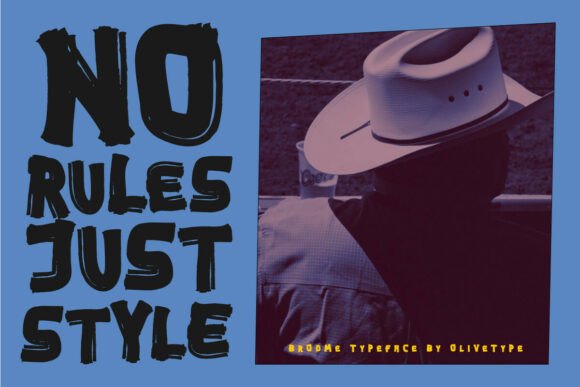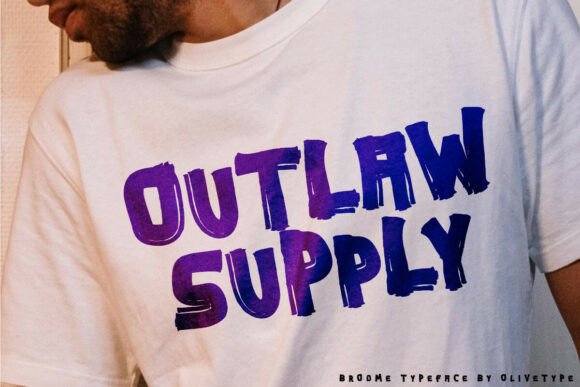
Unleash Your Design’s Wild Side with Broome Font
Are you tired of using the same old clean and polished typography in your designs? Do you want to add a touch of raw energy and rugged attitude to your projects? Look no further than Broome Font, a bold brush display font that’s sure to make a statement.
The Inspiration Behind Broome
Broome is a handcrafted font that captures the essence of gritty, hand-painted textures. Its rough edges and expressive letterforms evoke a sense of movement and rebellion, making it perfect for designers who want to break away from the norm. With its worn-in feel and authentic charm, Broome is the ideal choice for projects that demand attention and personality.
Perfect for Bold and Edgy Designs
Broome is a versatile font that can be used in a variety of design projects, from western cowboy themes to vintage posters, movie titles, music covers, and apparel branding. Its bold and rugged style makes it perfect for creating striking visual impacts that grab attention. Whether you’re working on a bold social media graphic or a large headline, Broome delivers a dynamic and organic feel that’s sure to impress.
What Sets Broome Apart
So, what makes Broome stand out from other fonts? Here are just a few features that set it apart:
- Handcrafted brush style: Broome’s handcrafted brush style gives it a natural, imperfect charm that’s both dynamic and organic.
- Rough edges and expressive letterforms: The font’s rough edges and expressive letterforms create a sense of movement and rebellion, making it perfect for designs that demand attention.
- Worn-in feel: Broome’s worn-in feel gives it an authentic, vintage vibe that’s perfect for designs that need a touch of nostalgia.
- Versatile: Broome can be used in a variety of design projects, from bold headlines to social media graphics.
How to Use Broome in Your Designs
Broome is a versatile font that can be used in a variety of design projects. Here are just a few ideas to get you started:
- Western cowboy themes: Broome’s rugged and bold style makes it perfect for western cowboy themes, from wanted posters to saloon signs.
- Vintage posters: The font’s worn-in feel and authentic charm make it perfect for vintage-style posters, from movie promotions to event advertisements.
- Movie titles and music covers: Broome’s bold and edgy style makes it perfect for movie titles and music covers, adding a touch of raw energy and rebellion to your designs.
- Apparel branding: The font’s handcrafted brush style and rugged attitude make it perfect for apparel branding, from t-shirt designs to hat logos.
- Social media graphics: Broome’s bold and dynamic style makes it perfect for social media graphics, from Instagram posts to Facebook ads.
| Font Name | Broome Font |
| Author | olivetype |
If you’re looking for a font that adds a touch of raw energy and rugged attitude to your designs, look no further than Broome Font. Its handcrafted brush style, rough edges, and expressive letterforms make it perfect for designers who want to break away from clean and polished typography. With its versatility and dynamic feel, Broome is the perfect choice for a wide range of design projects, from western cowboy themes to social media graphics. So why settle for ordinary typography when you can unleash your design’s wild side with Broome Font?